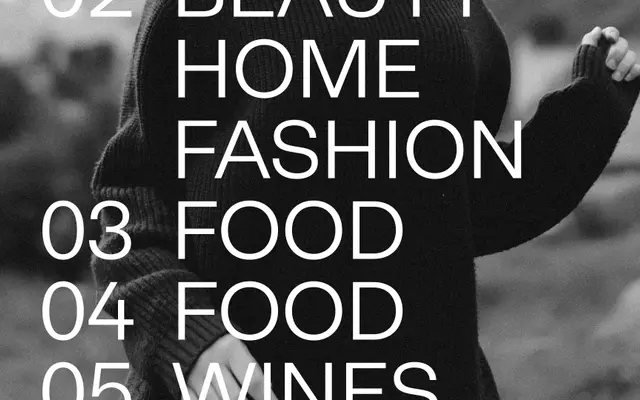
Neue Rational
A nine-weight geometric sans with matching italics and a thorough set of OpenType alternates for publication and branding work.
Spanning nine weights from Thin to Black, each with an italic, the family offers broad typographic range for editorial and corporate applications. OpenType features include tabular and proportional figures, fractions, discretionary ligatures and alternates for 'a', 'g', 'y' and 't', giving designers granular control over texture and voice. The alternate single-storey forms allow the family to shift between a strict rational register and something slightly warmer.
The name and page copy reference rationalism directly, and the upright geometric construction with alternate single-storey 'a' and 'g' forms is consistent with a geometric sans tradition.